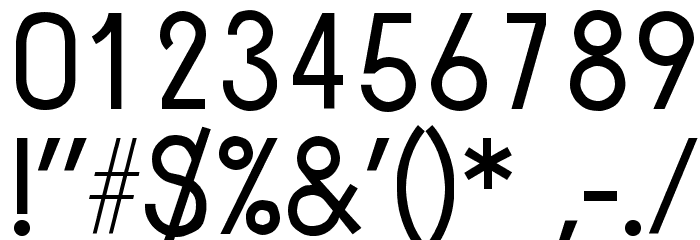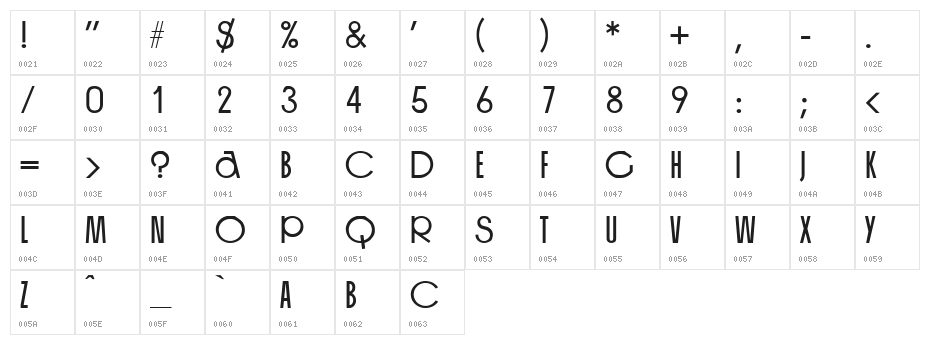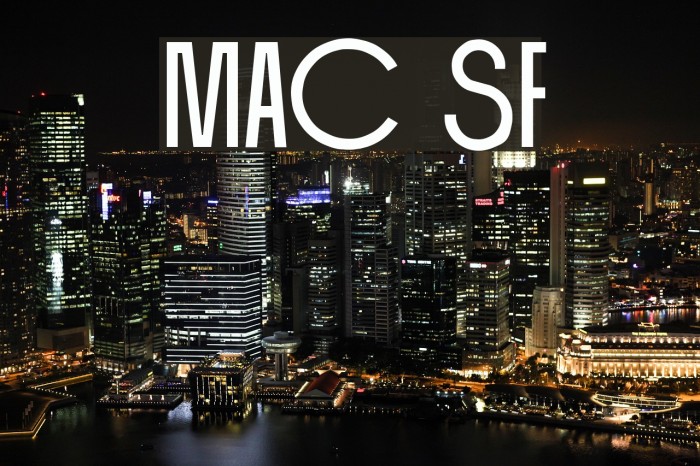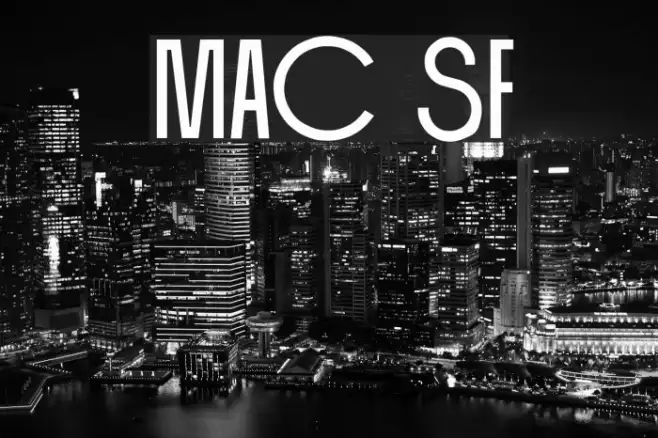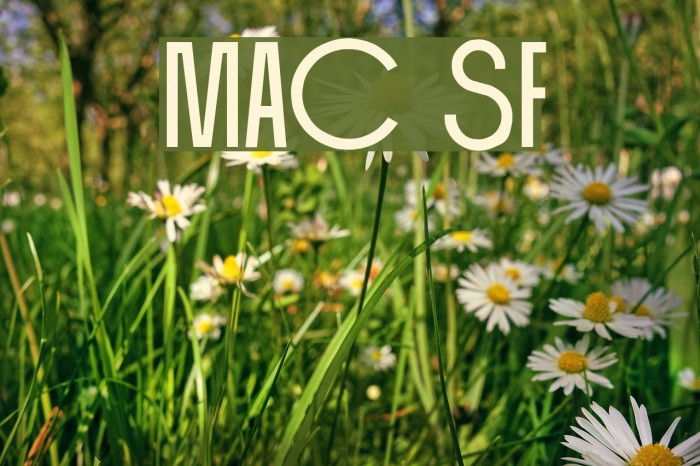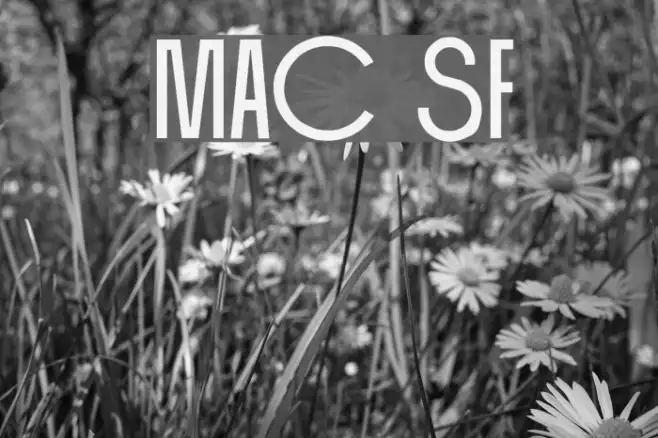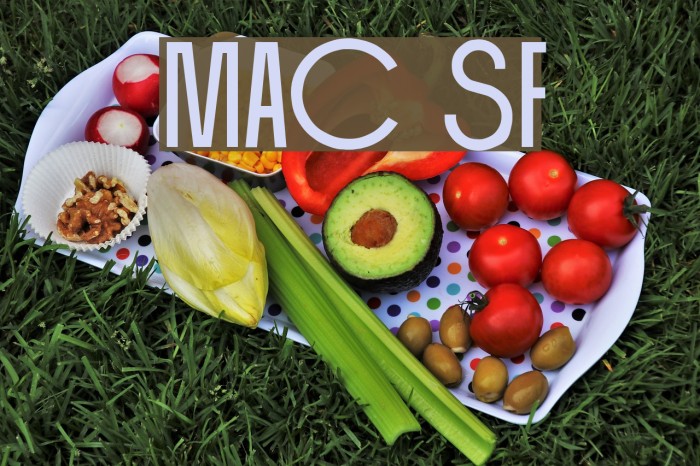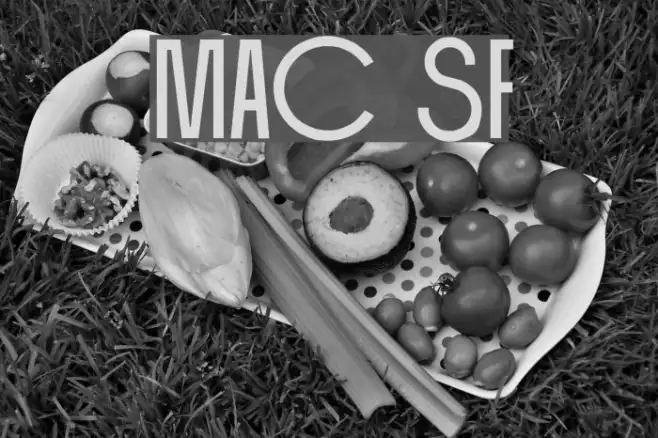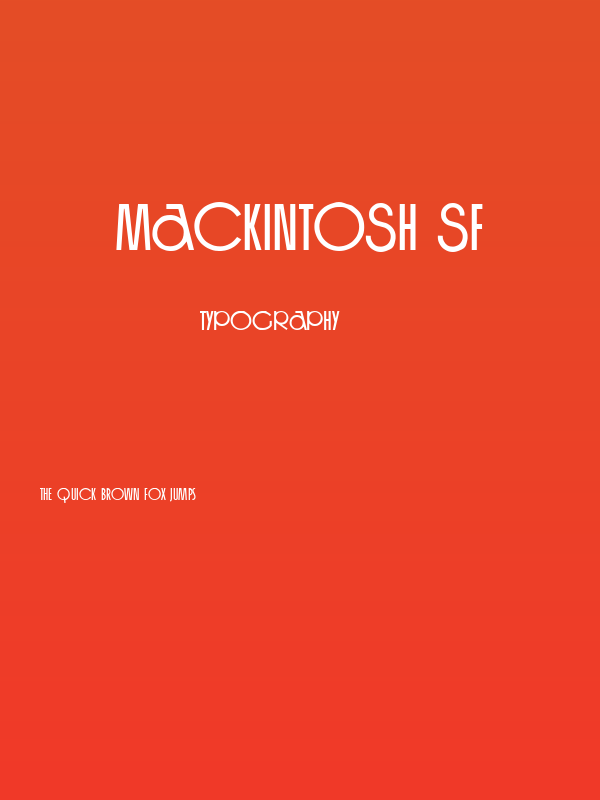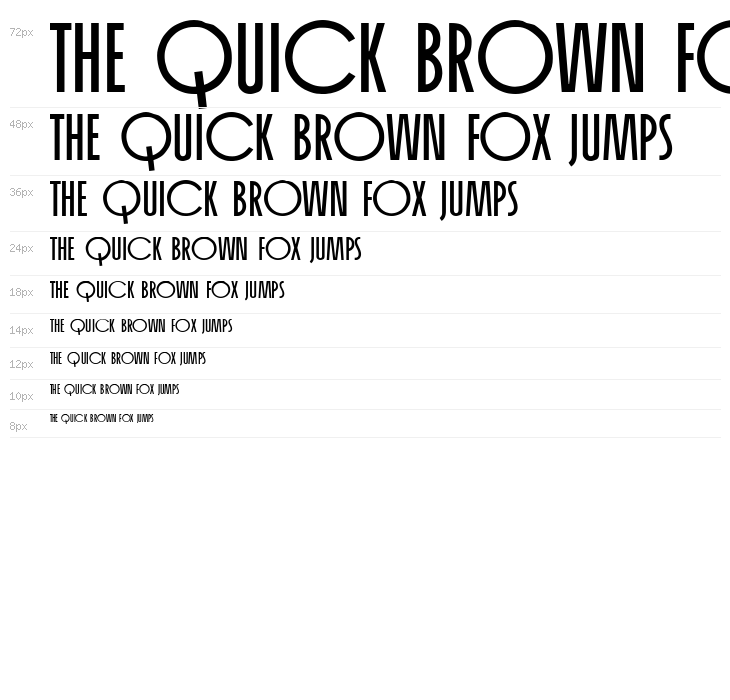
Mackintosh SF Font
Mackintosh SF Description
This font exhibits a unique blend of geometric and art deco influences, characterized by its bold and striking letterforms. The uppercase letters are tall and narrow, with a distinct angularity that gives them a modern yet retro feel. The lowercase letters maintain a consistent style, with rounded edges and a playful, almost whimsical appearance. The numerals are clean and straightforward, complementing the overall aesthetic. Special characters are designed with the same attention to detail, ensuring a cohesive look across all glyphs. This font's design is both eye-catching and versatile, making it suitable for a variety of creative applications.